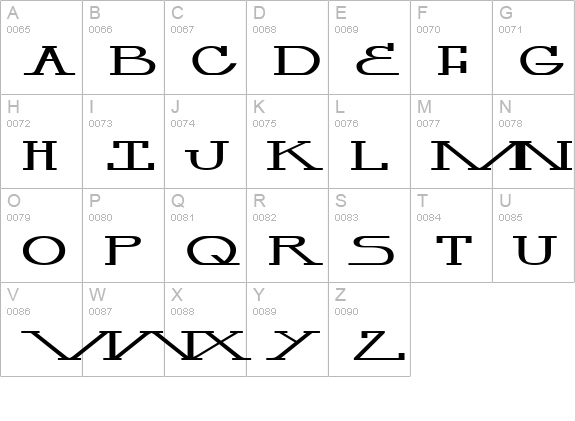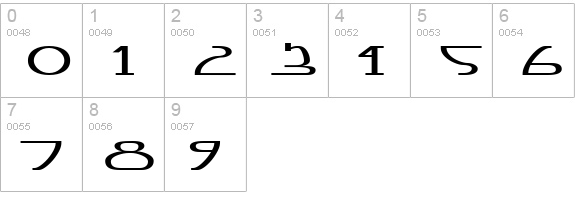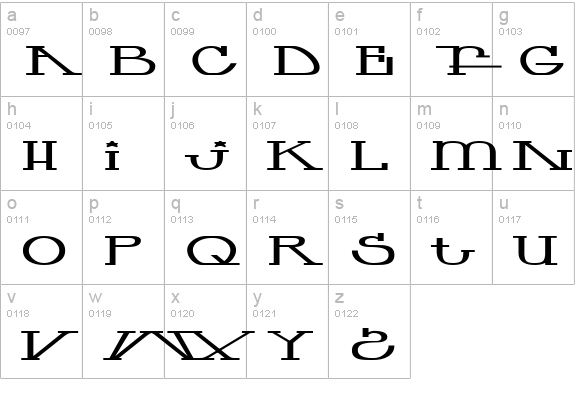
Mastillo Font Details
Introducing Mastillo, a captivating and versatile font that will add a touch of elegance to any project. With its unique and intricate design, Mastillo is perfect for adding a sophisticated and contemporary feel to logos, branding materials, invitations, and more. This free font offers a wide range of stylistic options, from bold and eye-catching to delicate and understated. Its carefully crafted letterforms ensure legibility and readability, making it suitable for both print and digital designs. Mastillo's versatility extends beyond just its aesthetics. With a wide range of glyphs and ligatures, this font allows you to create custom and personalized typography, ensuring that your design stands out from the crowd. And the best part? Mastillo is freely available to download at FontsMarket.com. Whether you're a professional designer, a student, or simply someone who appreciates high-quality typography, this font is a must-have addition to your collection. So don't hesitate, download Mastillo today and let your creativity soar. Experience the beauty and versatility of this font and elevate your designs to new heights.